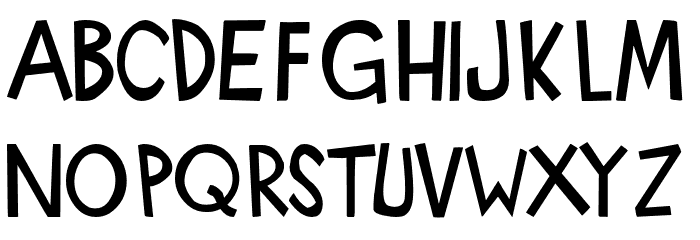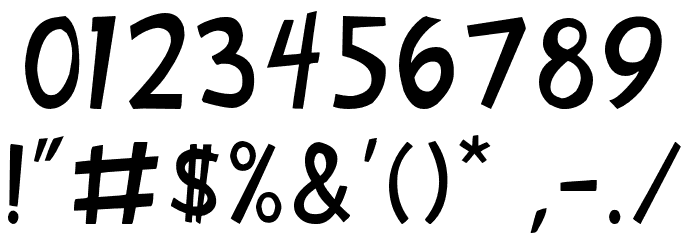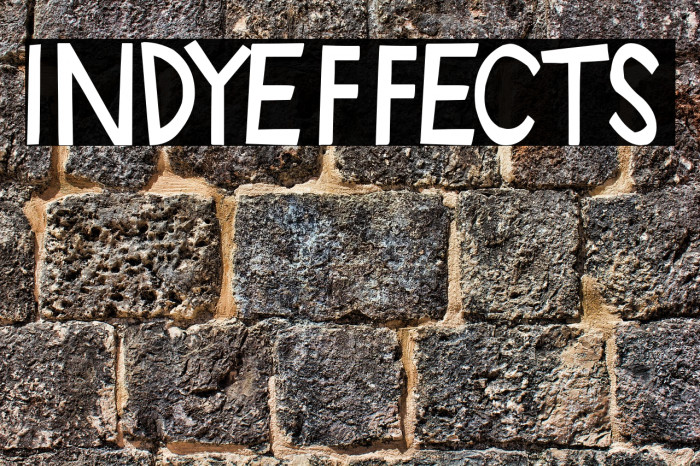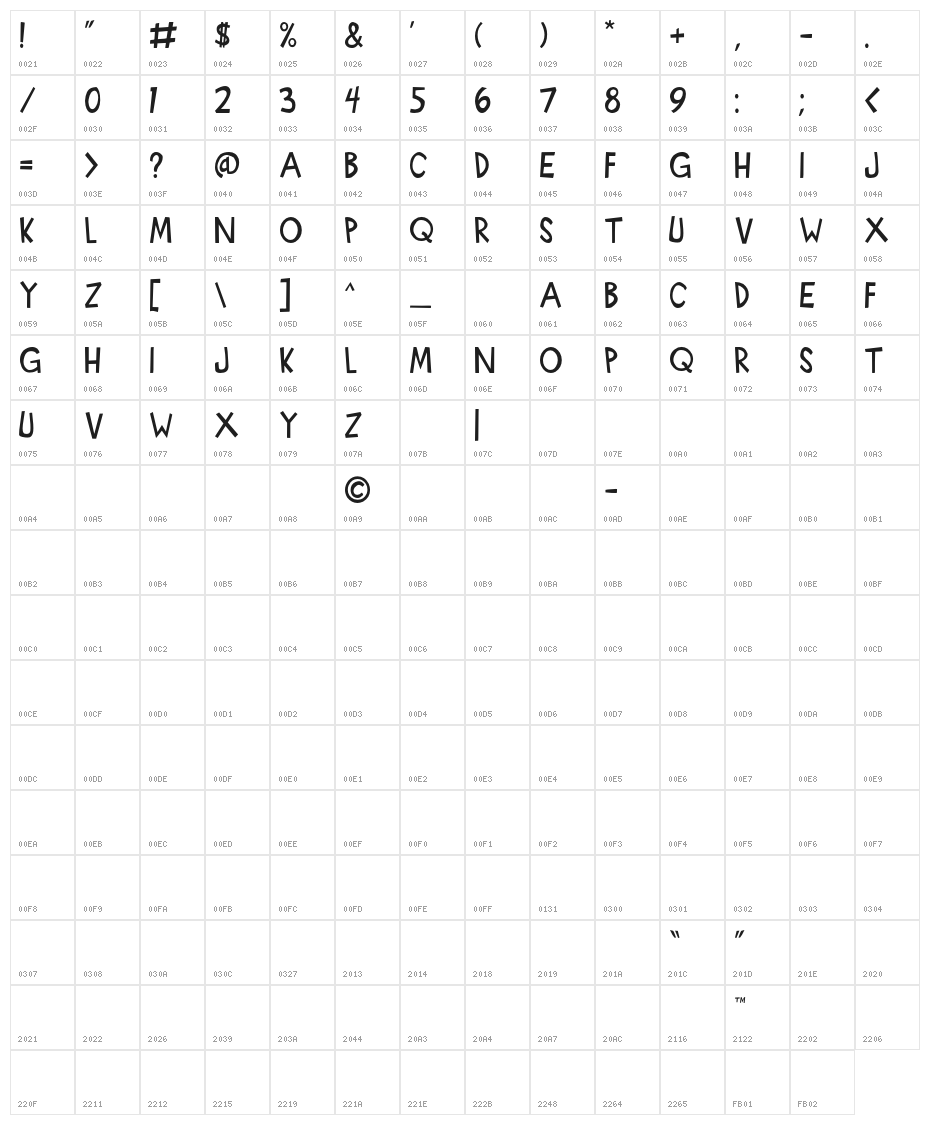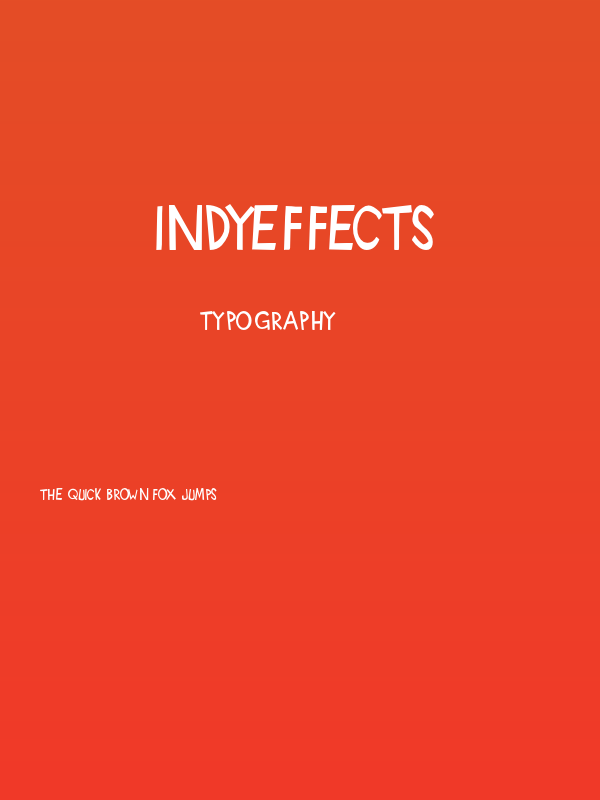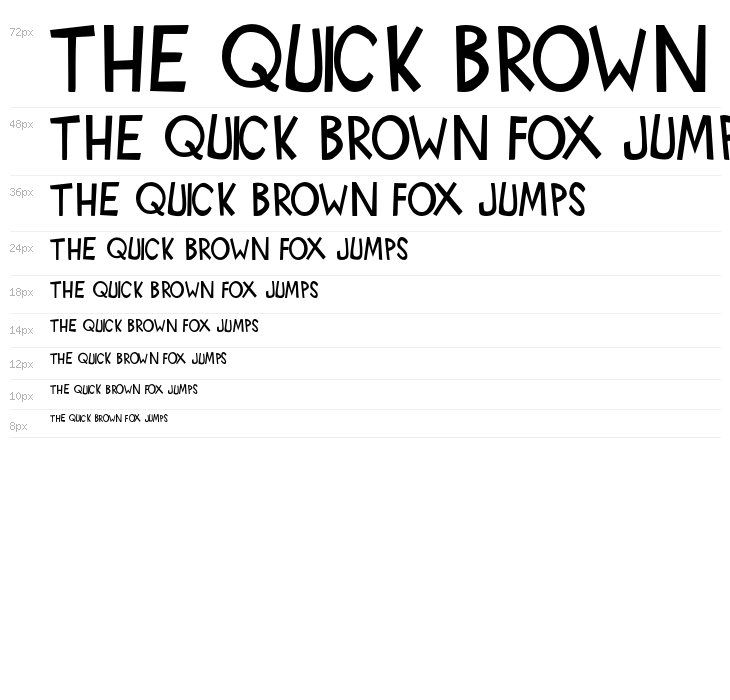
IndyEffects Font
This font features a playful and energetic style with a handwritten appearance. The characters are bold and slightly irregular, giving them a lively and informal feel. The uppercase letters are tall and narrow, while the lowercase letters maintain a consistent height, contributing to a cohesive look. The numbers and special characters follow the same playful design, making them suitable for creative and fun projects. The strokes are consistent in weight, providing a balanced and harmonious appearance across all characters.
A playful, handwritten-style font with bold, irregular characters.
- Proposed Projects: Ideal for children's books, comic strips, playful branding, and creative posters.
- Overall Style: Playful